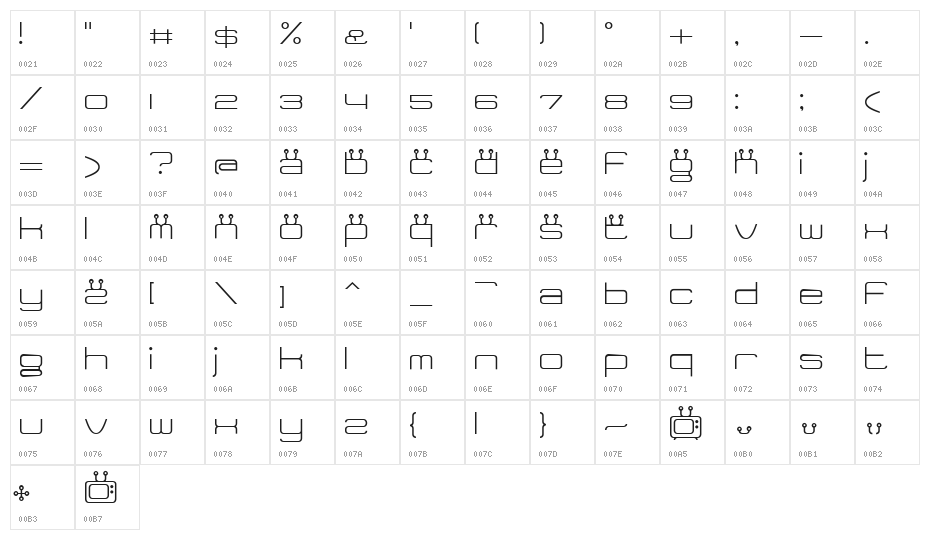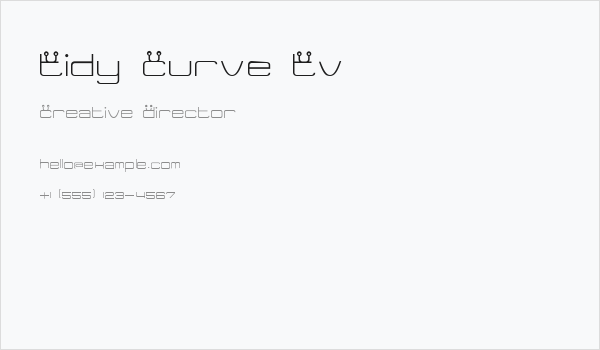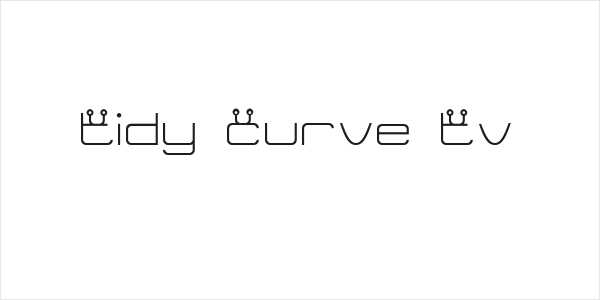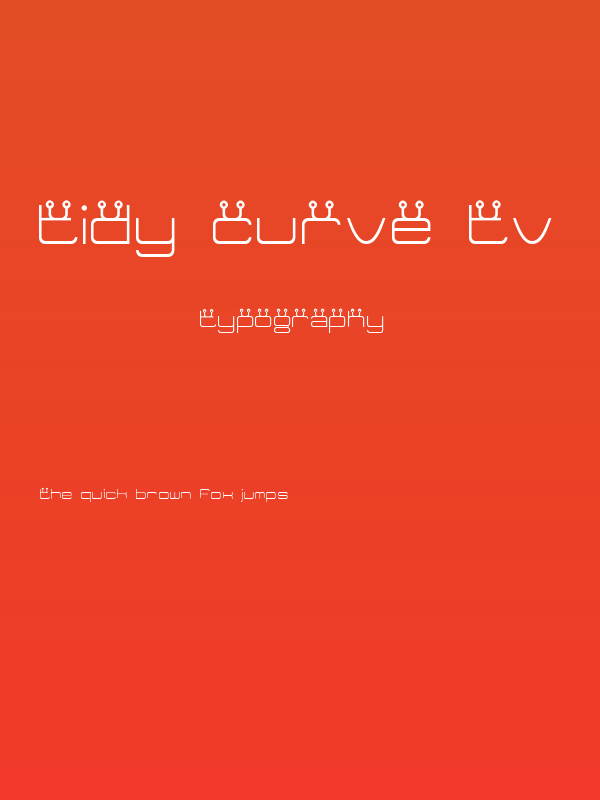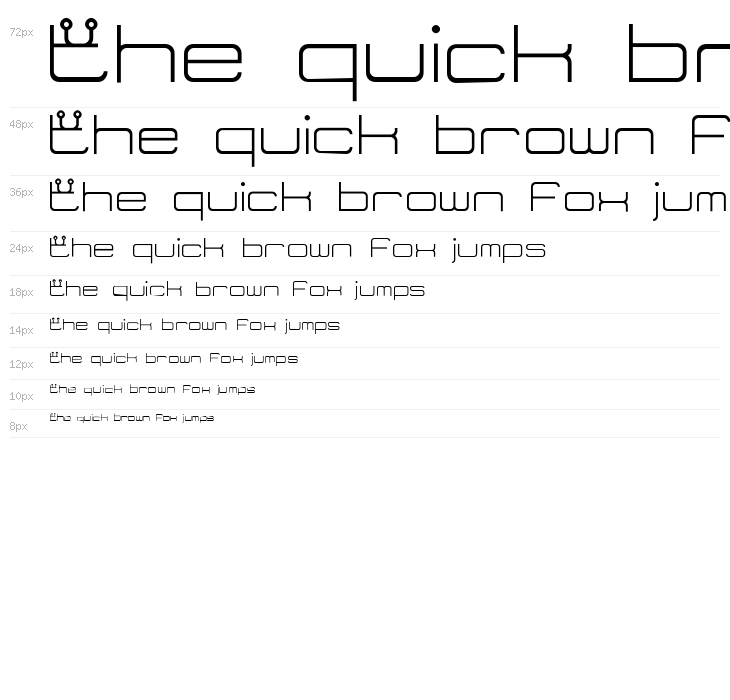
Tidy Curve TV Font
Tidy Curve TV Description
This font features a unique and playful design with a modern twist. The uppercase letters are adorned with crown-like accents, adding a whimsical touch. The lowercase letters maintain a clean and minimalist aesthetic, with rounded edges and consistent stroke widths. The numerals and special characters follow the same design principles, ensuring uniformity across the typeface. This font's distinct style makes it suitable for creative and artistic projects, where a touch of fun and innovation is desired.
| Proposed Projects | Ideal for children's books, creative branding, playful posters, and artistic designs. |